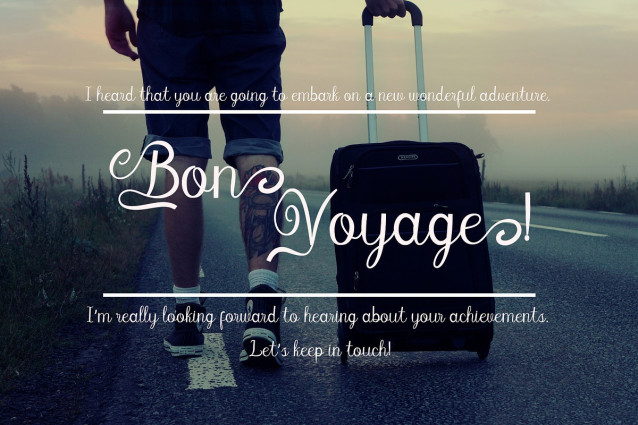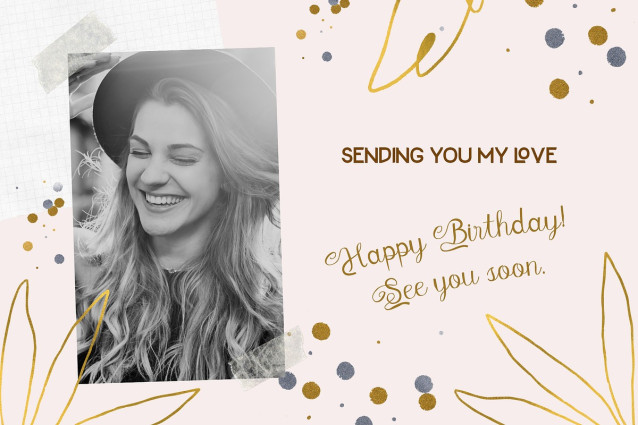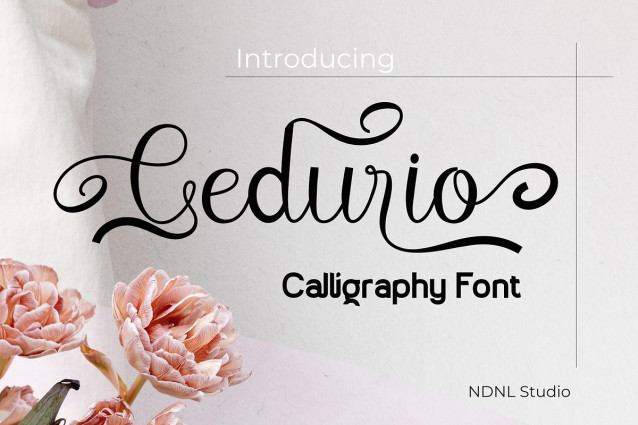
Cedurio Script Font
Cedurio Script Font is an elegant and graceful Calligraphy font designed with artistic swashes and decorative curves. Its smooth strokes and stylish letterforms make it perfect for romantic, luxurious, or personal projects. Whether you are designing wedding invitations, greeting cards, branding logos, or standout titles, Cedurio brings a handcrafted yet modern touch that leaves a lasting impression.